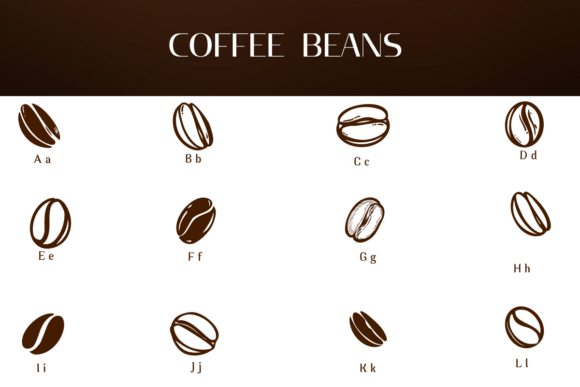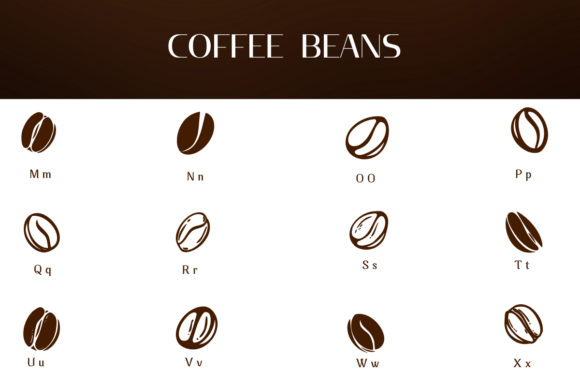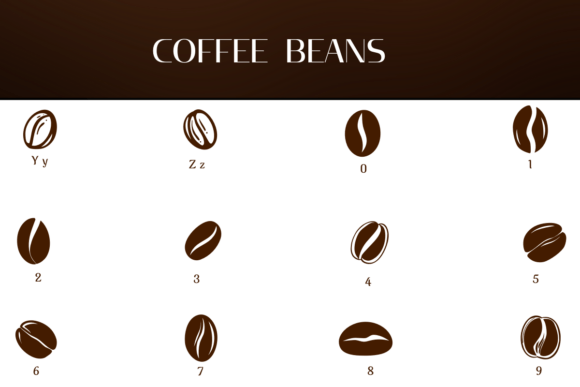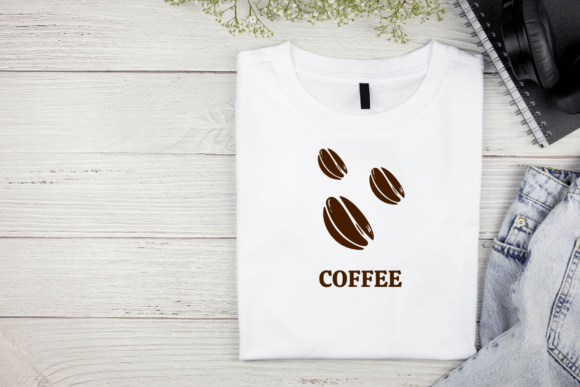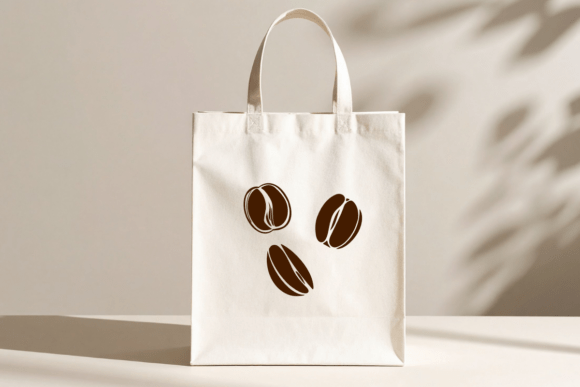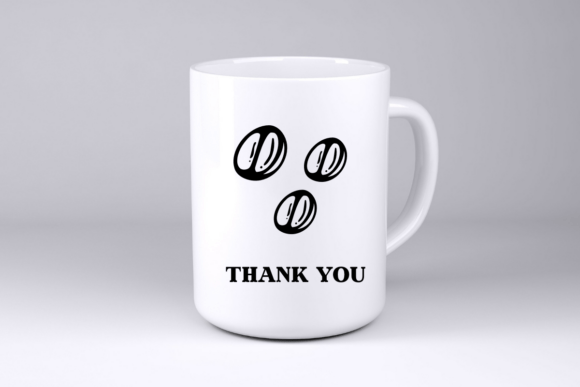
Coffee Beans Font: A Delightful Dingbats Addition to Your Creative Projects
I’ll never forget the time I was working on a branding project for a trendy coffee shop. My client wanted a unique and playful touch to their packaging, but I was struggling to find the perfect font to match their vibe. That’s when I stumbled upon the Coffee Beans font – a lovely dingbats font that instantly elevated my design game! In this article, I’ll share my experience with this charming font, its features, and how to make the most of it in your creative projects.
An Honest Review of Coffee Beans Font
- ✨ Unique and quirky design that’s perfect for creative projects
- ✅ Extensive character set, including glyphs and stylistic alternates
- 💡 Works beautifully for branding, packaging, and social media graphics
- 🎨 Can be used for a variety of design styles, from minimalist to playful
While Coffee Beans font is an excellent addition to any design project, there are a few things to keep in mind:
- 🤔 Limited use for body text, as it’s primarily designed for headlines and titles
- ⚠️ Some characters may not work well in smaller font sizes
The Backstory of Coffee Beans Font
Coffee Beans font was designed with the intention of creating a unique and playful dingbats font that would add a touch of whimsy to any design project. Inspired by the world of coffee and the joy of creative expression, this font is perfect for designers, crafters, and creative hobbyists looking to elevate their designs.
| Font Name | Coffee Beans Font |
| Author | Heartcraft Atelier |
| What type of projects is Coffee Beans font best suited for? | Coffee Beans font is perfect for branding, packaging, social media graphics, and any other creative project that requires a unique and playful touch. |